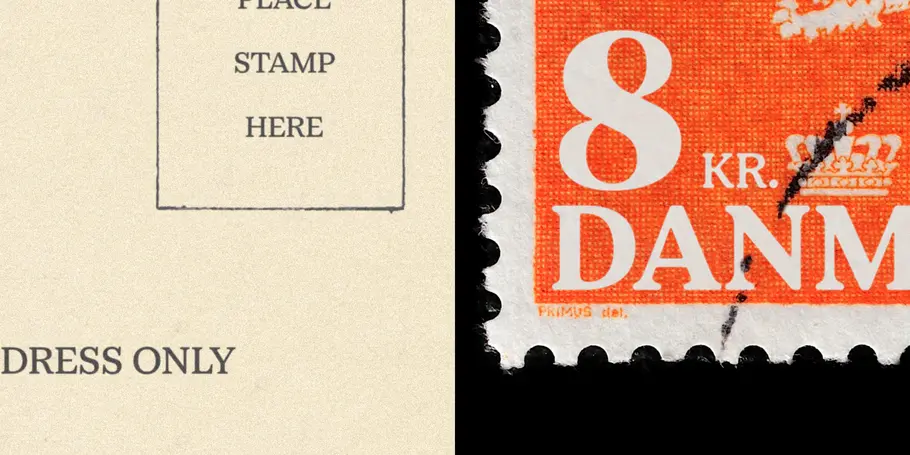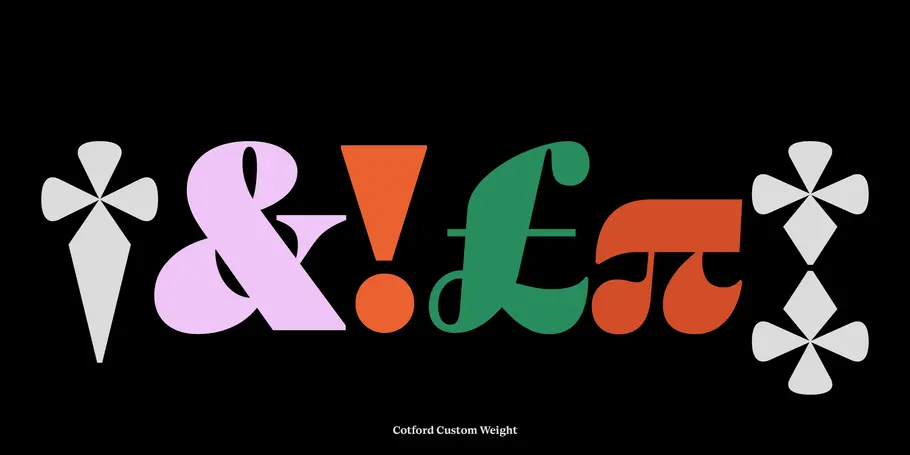
Everything old is new again: a deeper look at nostalgia in design.
「 How do we revive playful, comforting design elements of the past without ignoring painful truths about each era? 」
• Nostalgia design shows how old styles resurface, giving brands emotional resonance and cultural relevance.
• The article highlights examples where retro typography and visuals connect audiences to familiar eras.
• For designers, it proves that revisiting the past can create fresh, meaningful work that resonates today.
Nostalgia, thought to help people cope during times of crises, is having a moment in design of all kinds. We explore what’s driving the trend and some of the complexities inherent in reviving historical design elements.
Over the past year or two, nostalgia has begun to creep in to many facets of daily life – fashion and furniture, brand identities and even the music we stream. During what has been the most uncertain, unsettling 2 years most of us have experienced, we’ve watched brands and designers seek out a sense of comfort by reinventing the familiar. Scientifically, it makes sense as psychologists have found that reminiscing can help people cope with crises.
Like picking for antiques, designers similarly love to dig for inspiration in heritage logotypes, books, posters, and books, and pay homage to those designs. How many typefaces were inspired by letterforms in an old book discovered at a used bookstore or a postcard sourced at a yard sale? It’s a way to celebrate icons or curate a unique style – whether in a logo, your closet or in your home.
Even our most recent Studio release, a contemporary serif titled Cotford, from Creative Type Director Tom Foley, carries a nostalgic touch. “Cotford reflects an experience many people had during the peak of last year’s lockdowns: A yearning for familiar comforts and a bit of warmth amidst the uncertainty.”
The thrill of the find.
Outside of type and graphic design, vintage styles have gained mainstream popularity across furniture, home décor and fashion. The ritual of discovering a rare piece of history and giving it a new life in the modern world has offered relief during the pandemic and grown via new channels like Instagram and fashion resale websites like Depop.
Fashion trends have always come in cycles, but according to ThredUp, an online resale store, thrifting has recently grown into a $36 billion industry that is expected to eclipse fast fashion by 2025. A heightened focus on sustainability has turned crowds of increasingly younger consumers towards consignment instead of supporting fast fashion. The pandemic has also caused supply chain issues across nearly every industry, and some customers prefer the instant gratification of thrifting over waiting for delayed shipping on new items.
The hunt for vintage finds extends to the lived-in world as well, as photographer Tyler Haughey shared on our podcast. His work focuses on certain signifiers like old signage or décor to explore how these items can anchor memories or experiences in our minds. “Memories start out being very familiar and recent and tangible,” Haughey said, “and then as you get further and further away, they kind of turn strange and take on this fantastical element. I think the nature of memory is that it just becomes less and less specific over time.”
All of these elements, whether bubbly 70s style fonts, hazy photos of bygone beach towns, thrifted denim, or antique furniture, can serve as vehicles for storytelling and reviving the past. In our 2021 Trends Report, we first identified our “soft-serve” serif font trend after noticing the appearance of classic, cozy, heavily nostalgic Cooper Black–influenced serifs in rebrands for Chobani (InHouse), MailChimp (Collins), Meridian (BulletProof), Dunkin and Burger King (JKR). After a relentless year, the trend has held strong, showing up via letterforms with playful swashes, fat serifs, quirky letters and vibrant color schemes.
Celebrating diversity in history.
Where it gets tricky, though, is separating that appreciation for heritage design elements with the sometimes-unsavory social contexts they were born in. “This whole idea of nostalgia and rose-colored glasses leaves us prone to cherry-picking—ignoring sexism, racism, and social inequality, and saying, ‘Well, there was a time when white men were able to go play baseball!”” Monotype Creative Director Charles Nix pointed out in a Print Mag interview about the resurgence of retro sports uniform design.
「 So how do we revive playful, comforting design elements of the past without ignoring painful truths about each era? 」
To take it back to type, let’s look at the work that Tré Seals, owner, and founder of Vocal Type, is doing to use fonts as a means for storytelling. All of Vocal’s typefaces are derived from historical events such as marches and protests, and are named after prominent advocates of social justice, including Marsha P. Johnson, Martin Luther King, and Bayard Rustin.
As a black designer who hadn’t seen himself represented in the industry, Seals has spoken about the lack of diversity in design and how it has shaped his career.